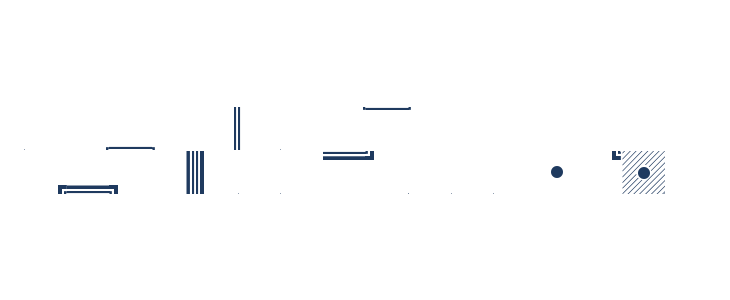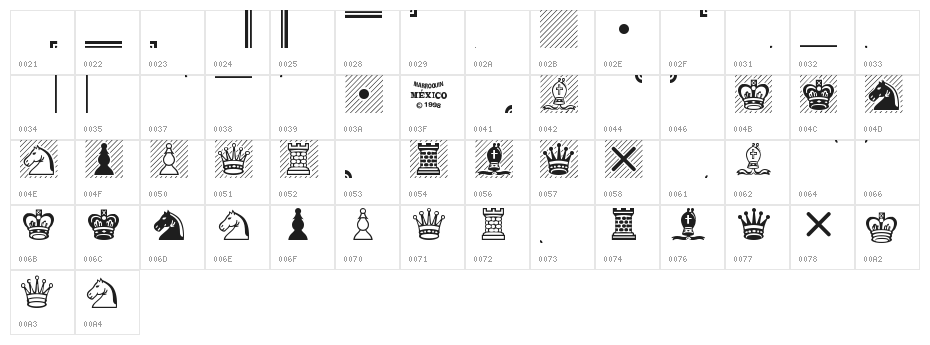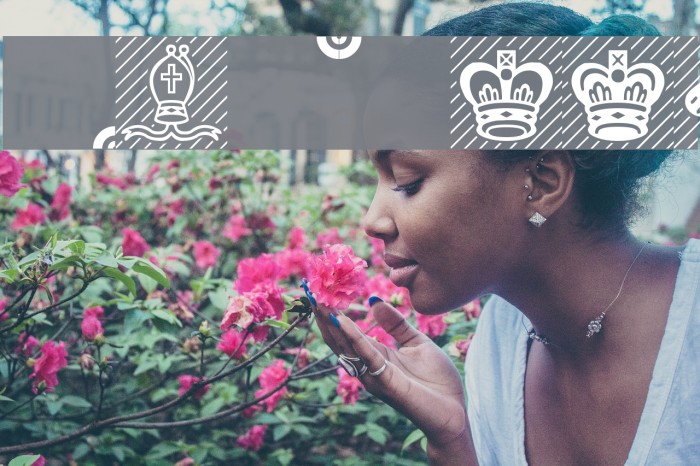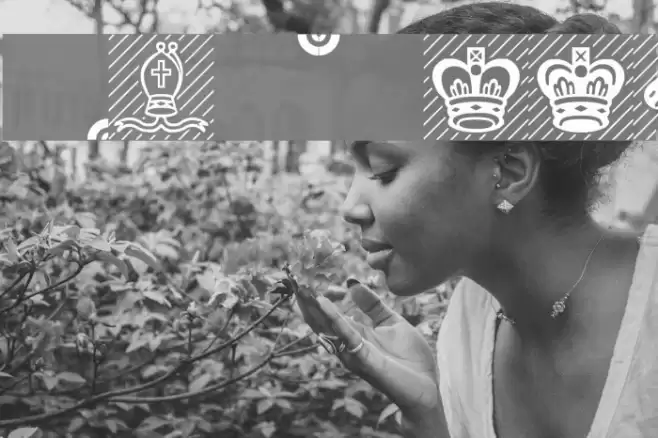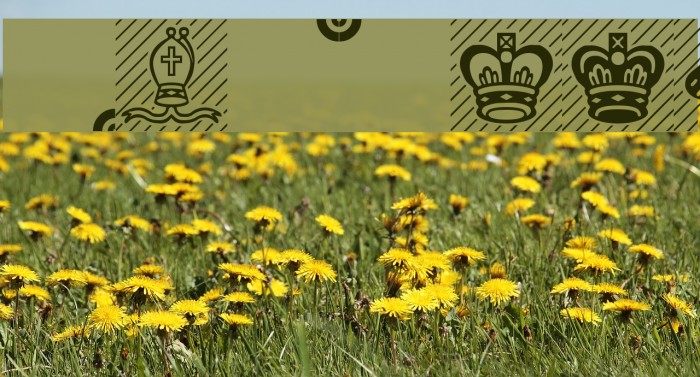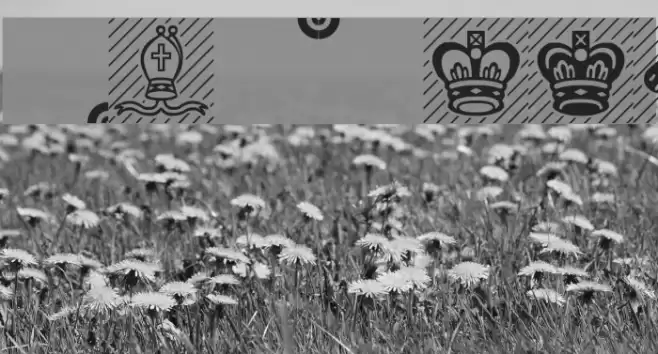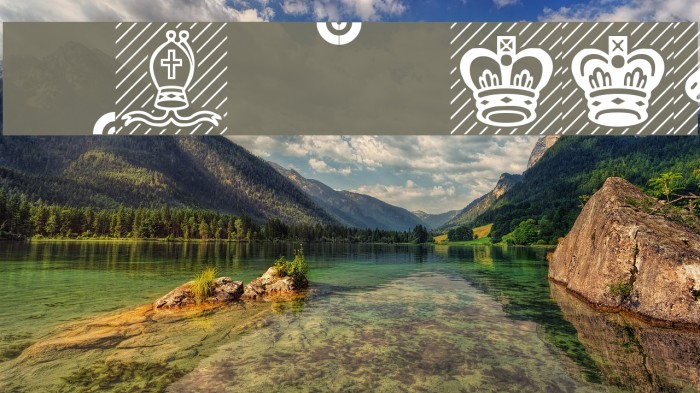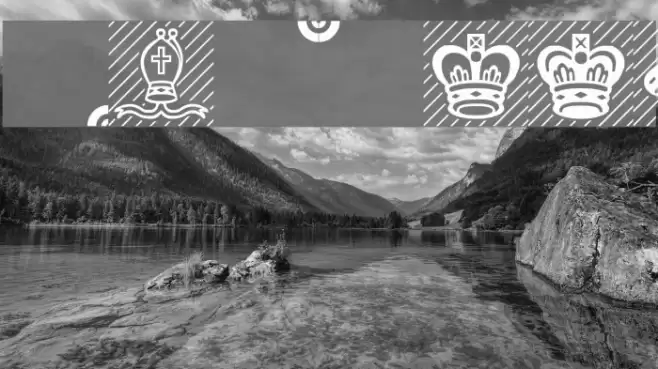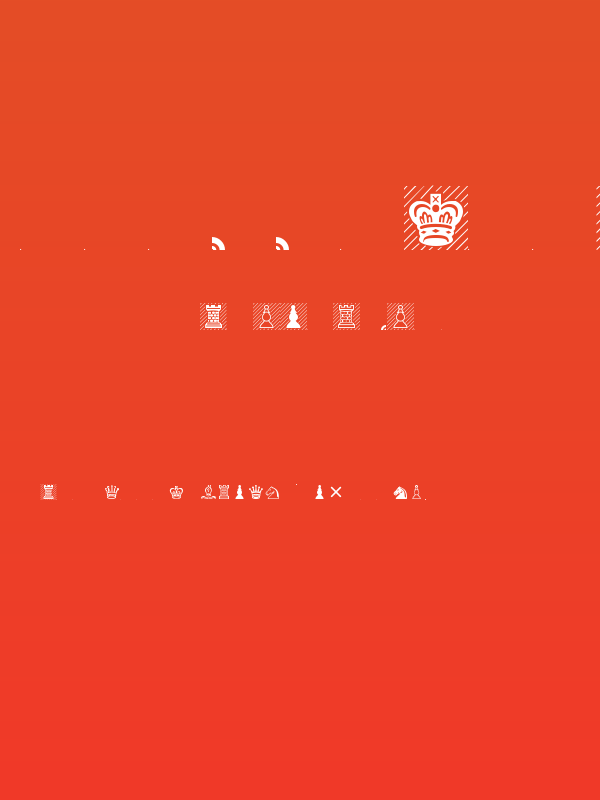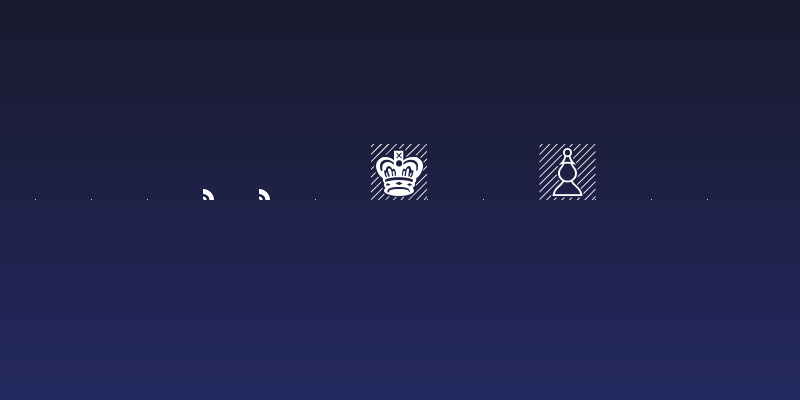
Chess-Leipzig Font
Chess-Leipzig Description
A decorative chess-themed symbol font featuring stylized representations of chess pieces such as knights, pawns, bishops, queens, rooks, and kings, along with chess notation symbols and board elements. The glyphs are bold, highly contrasted, and use a combination of solid black fills and outlined details, with some pieces set against hatched backgrounds.
| Overall Style | Decorative, Thematic |
| Use Case | Chess diagrams, Game notation, Educational graphics |
| Proposed Projects | Chess diagrams, educational materials, game interfaces, themed posters, instructional books. |